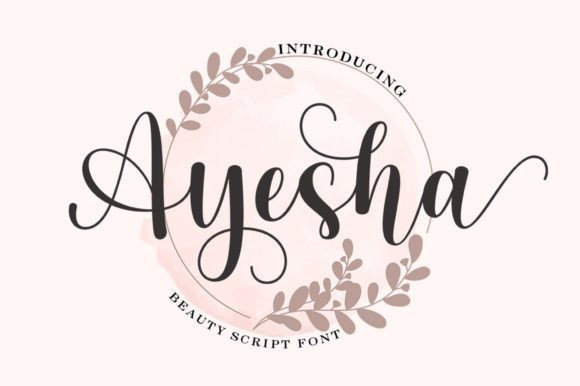
Ayesha Font
Ayesha Script Font is a lovely and cute script font. It has beautiful and well-balanced characters and as a result, it matches a wide pool of designs. Add it to your most creative ideas and notice how it makes them come alive!